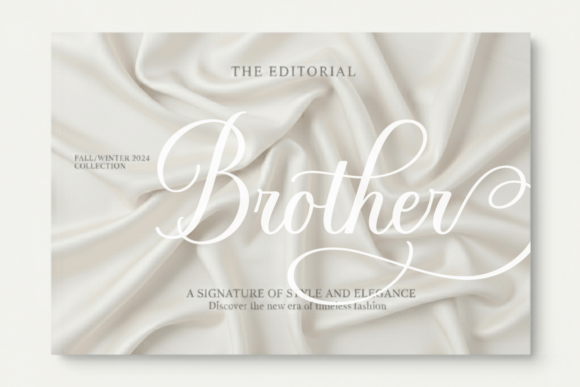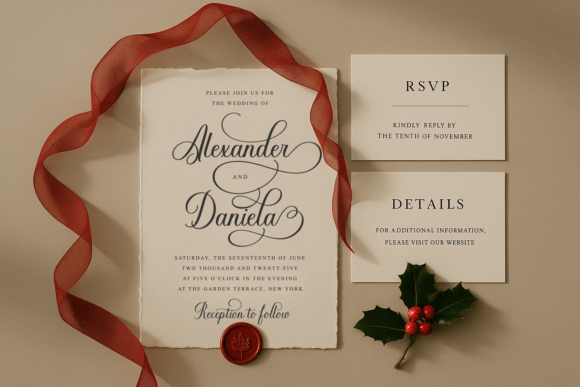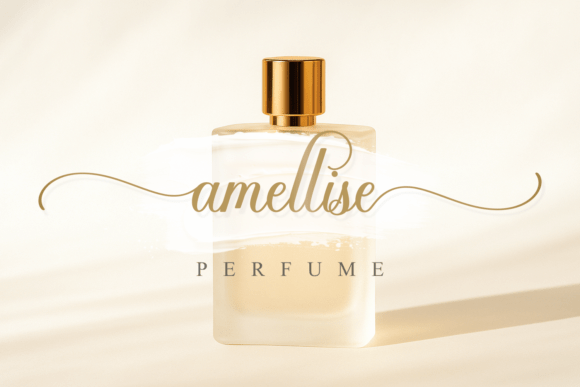
Introduction to Javaline Font
Javaline is a modern calligraphy font that radiates elegance, charm, and sophistication.
With its graceful letterforms and beautifully flowing swashes, Javaline is the perfect choice for designs that need a luxurious and feminine touch This font is designed to bring beauty and refinement to your creative projects — from wedding invitations, branding, and greeting cards to logo designs, quotes, and social media posts.